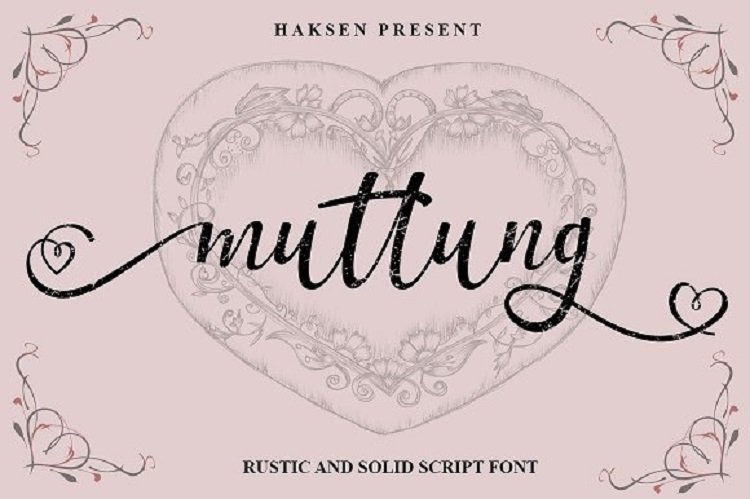
Muttung Script Font
I really glad to inform You and of course introduce my New Collection Font with the name “Muttung”“Muttung” is beauty font script with more than 40 glyps of alternate to provide beauty types.